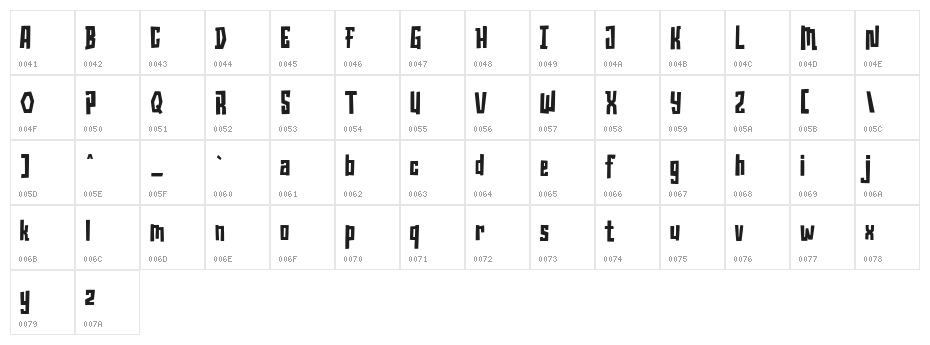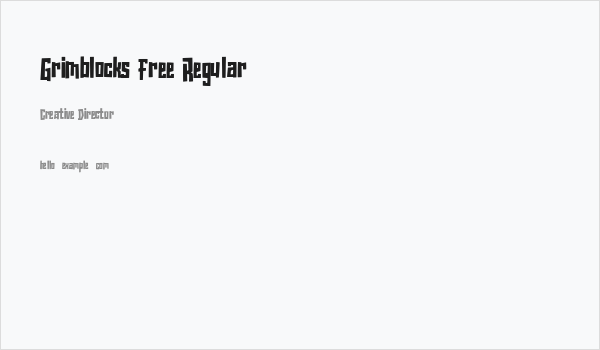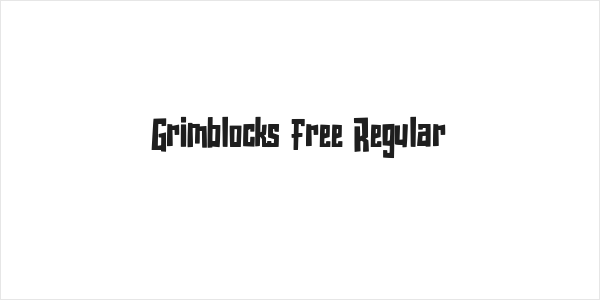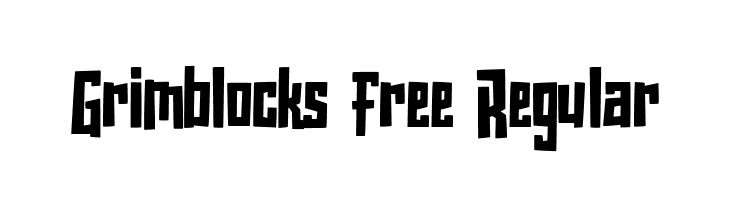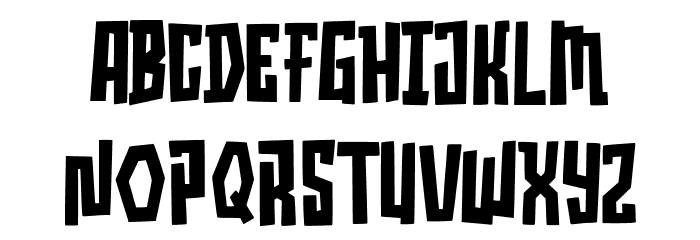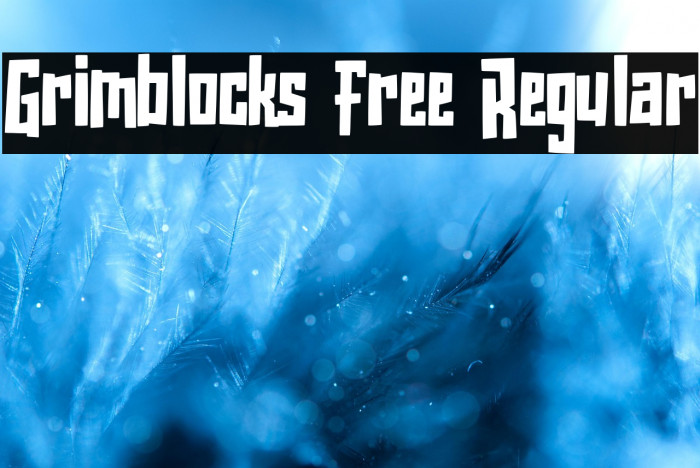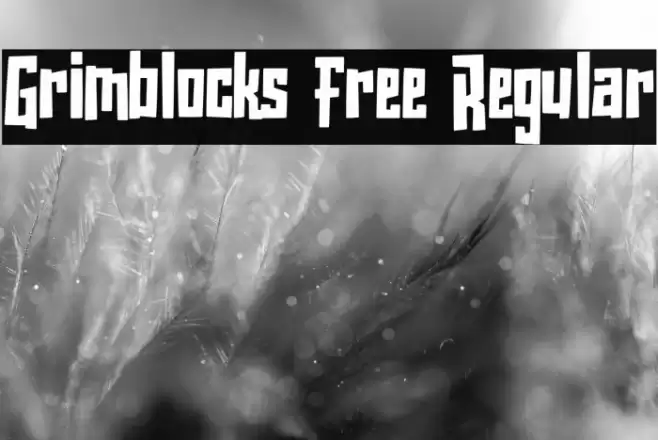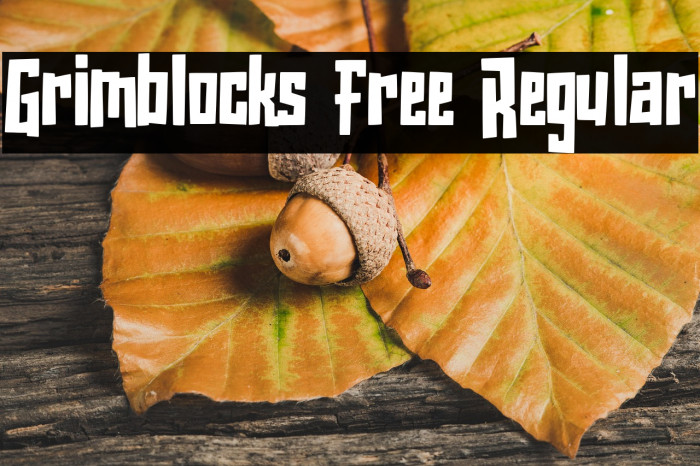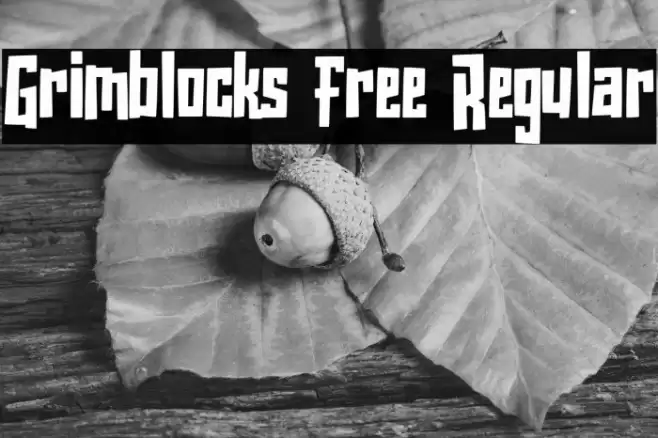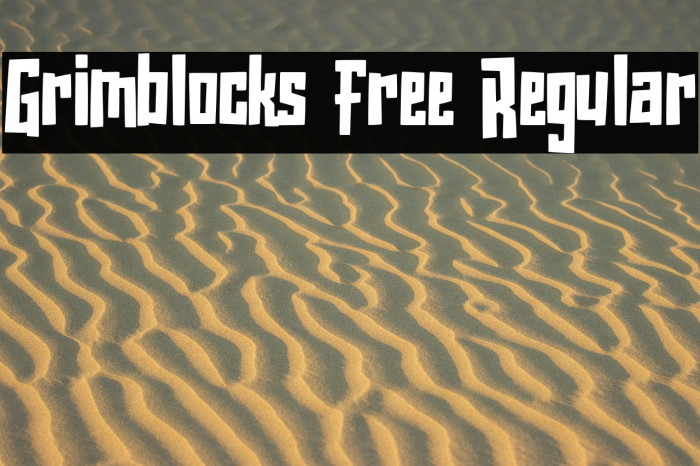
Grimblocks Free Regular Font
Fonts by Maulana Creative
| おすすめプロジェクト | Ideal for posters, logos, video game graphics, and branding materials that require a bold statement. |